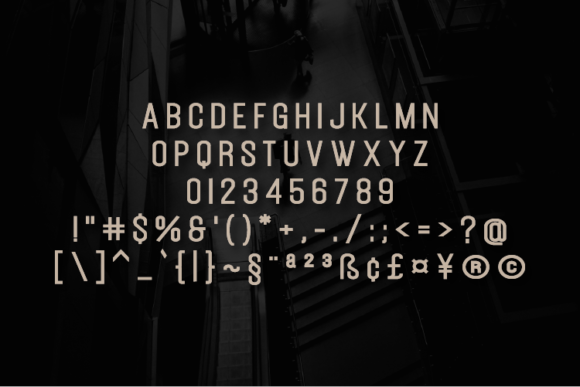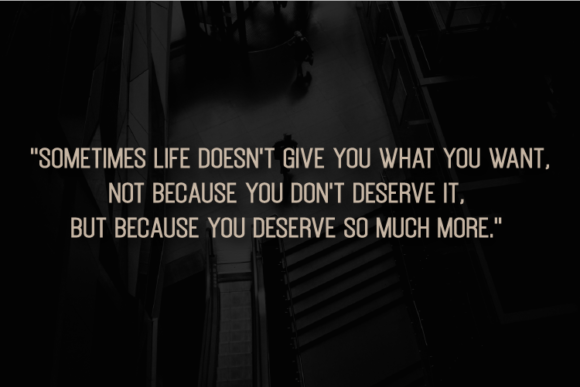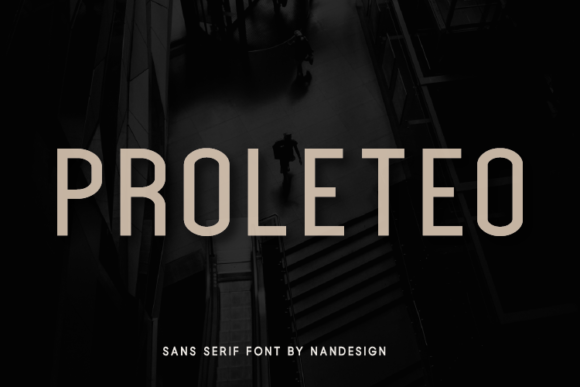
Introduction to Proleteo Font
Proleteo is a simple and neat lettered sans serif font.
Add this font to your favorite creative ideas and notice how it makes them come alive .
Key Features of Proleteo Font
Why Choose Proleteo Font?
Proleteo Font offers exceptional quality and versatility, making it a valuable addition to your design toolkit. Whether you’re creating for personal projects or commercial use, Proleteo Font delivers professional results.